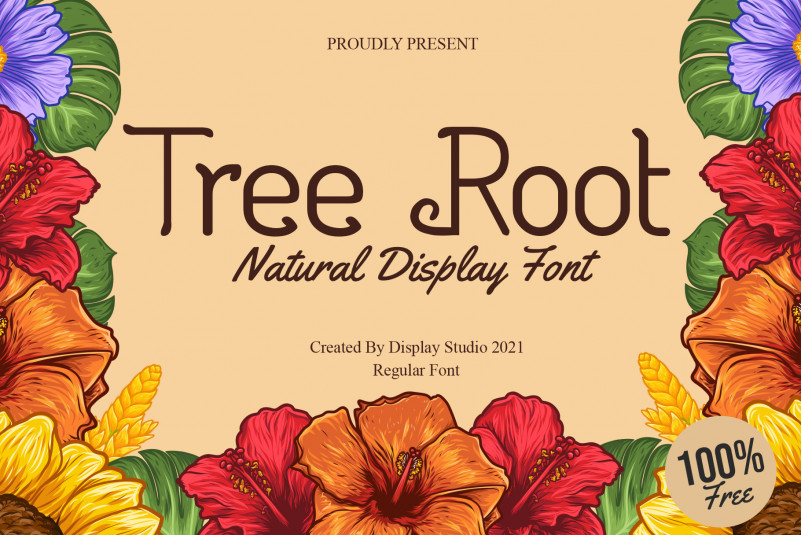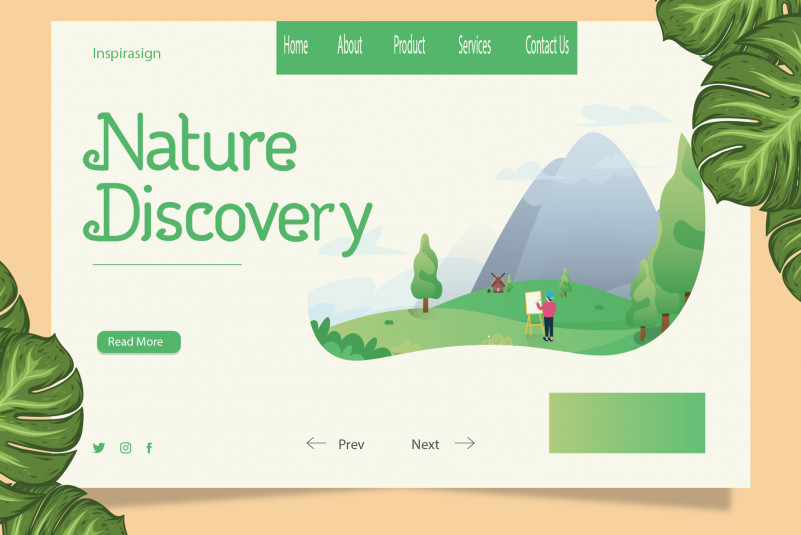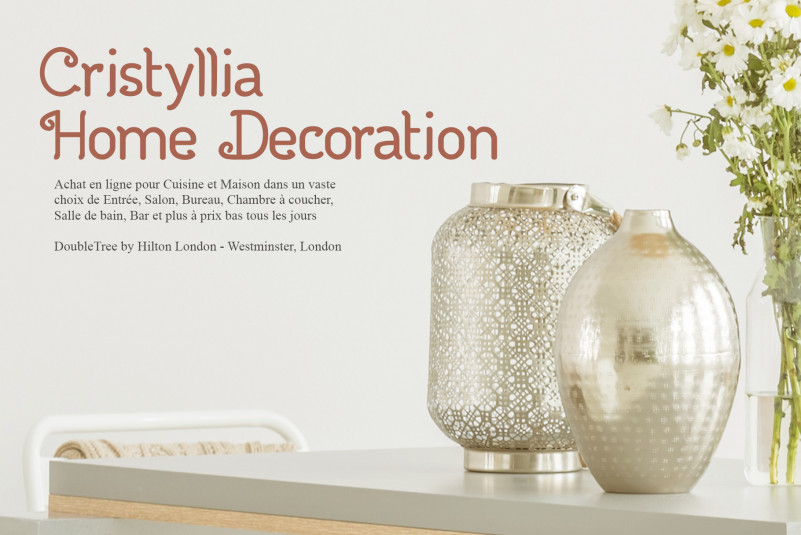
Tree Root Display Typeface
Introducing our new release, Tree Root Natural Display Font. This typeset is perfect for brand logo, invitations, greeting card, or even any kind of project. With multilingual feature and style variations, this typeface would further enhance the aestethical aspect of your work.